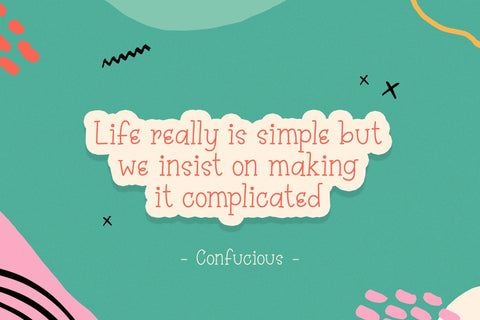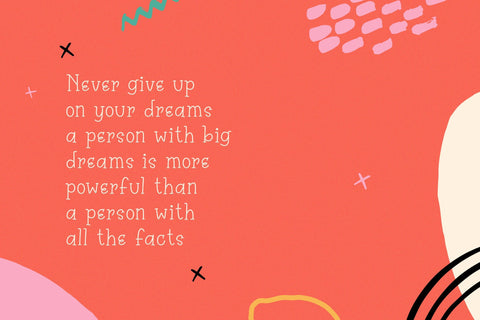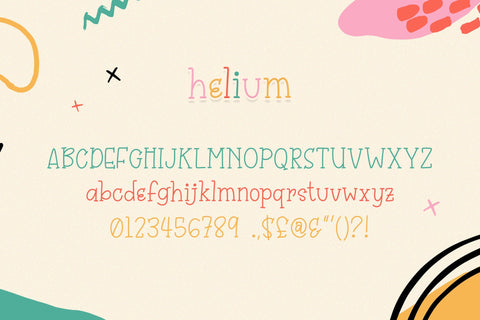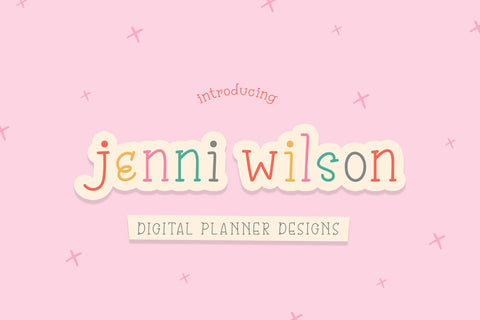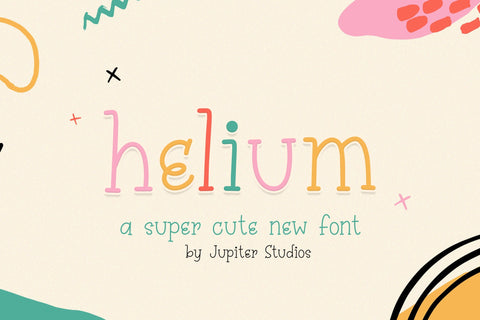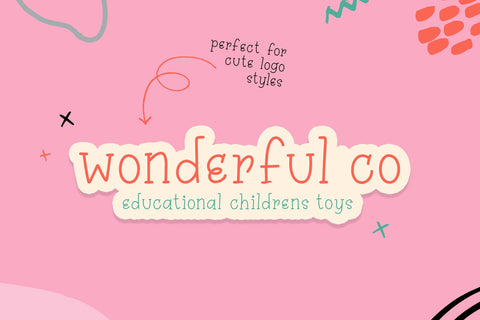
Helium Fonts (Cute Fonts, Craft Fonts, Hand Drawn Fonts, Procreate Fonts)
Looking for Cute Fonts, Craft Fonts, Hand Drawn Fonts, Procreate Fonts? Introducing the wonderfully cute Helium Font